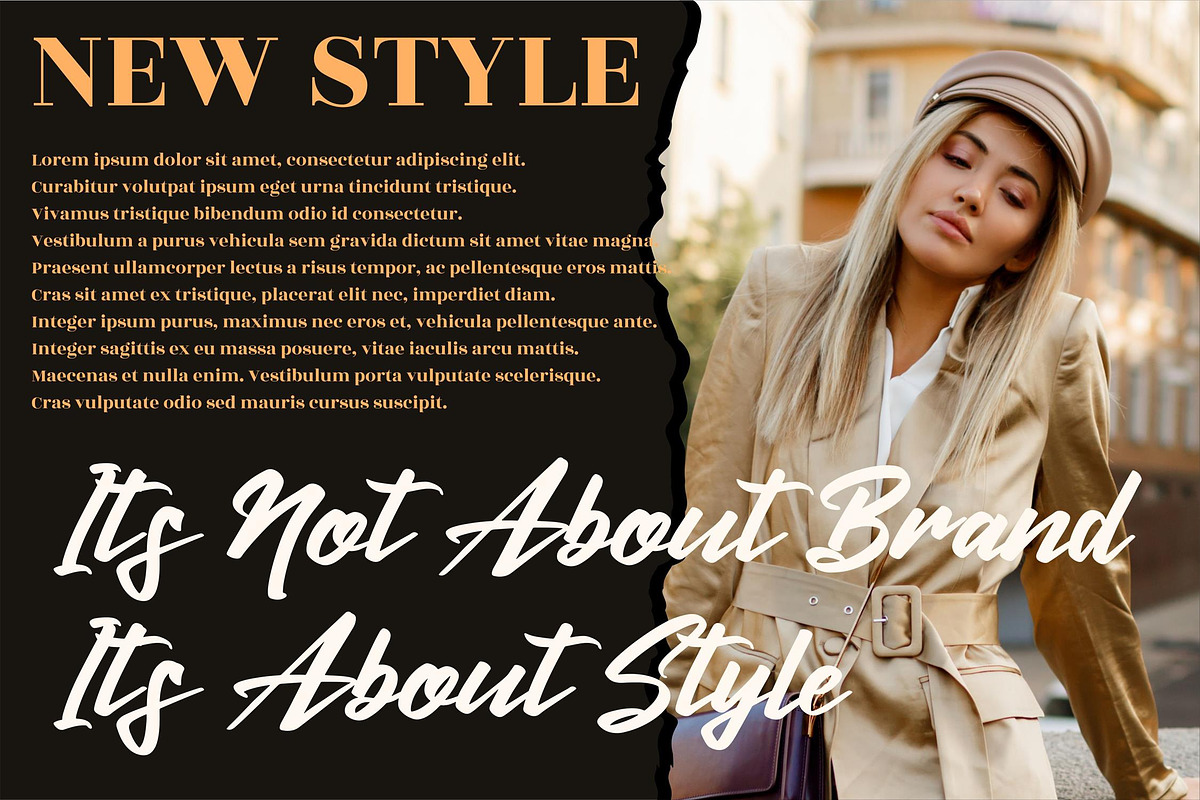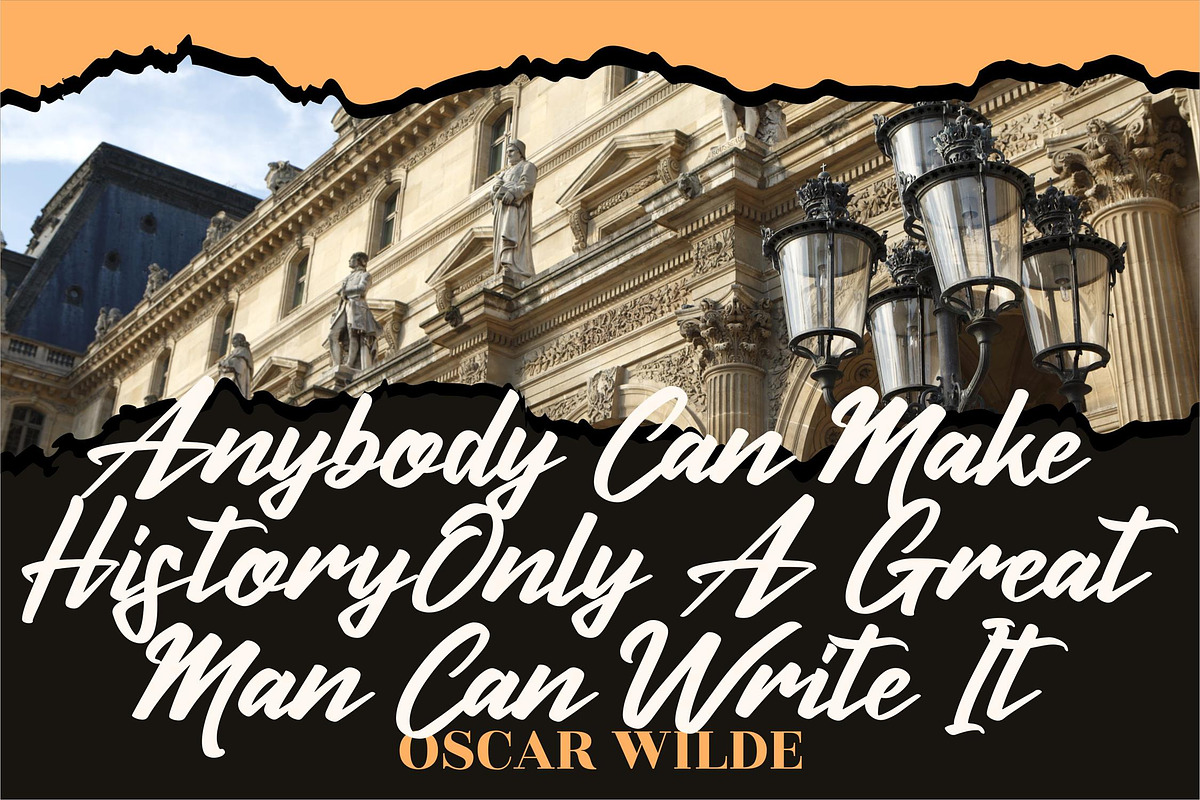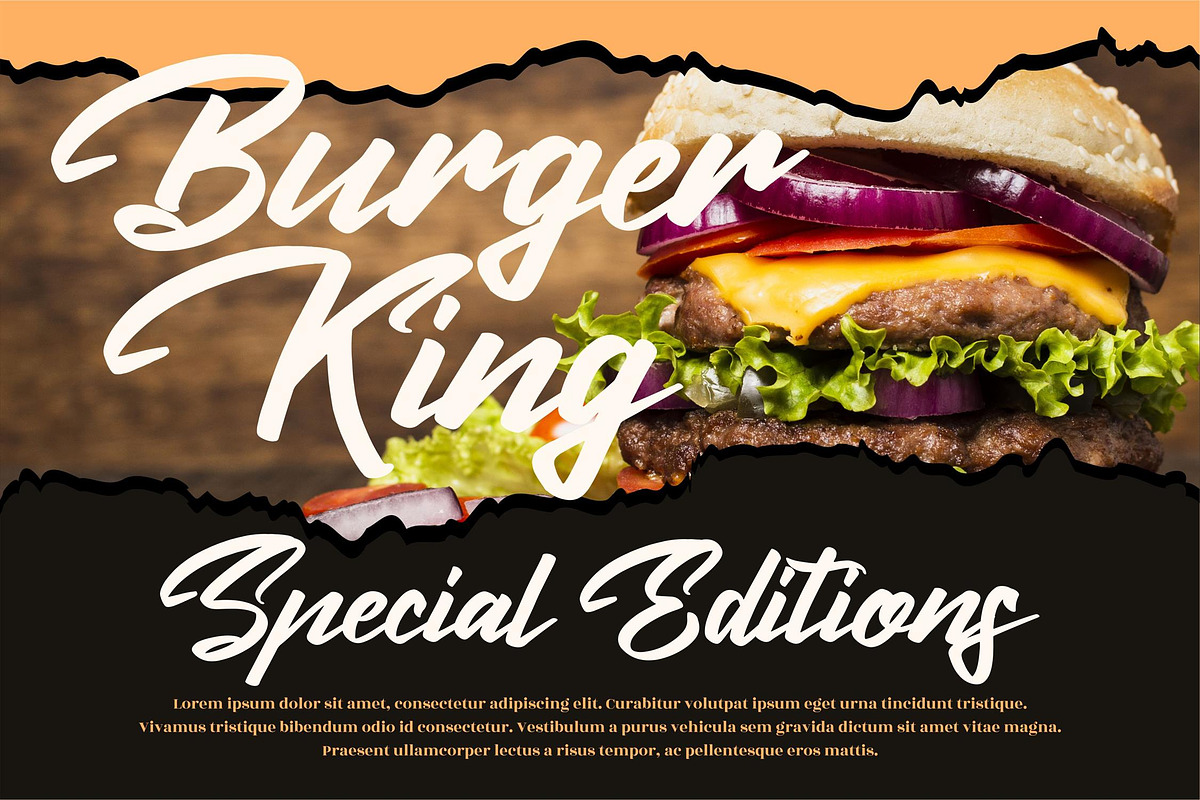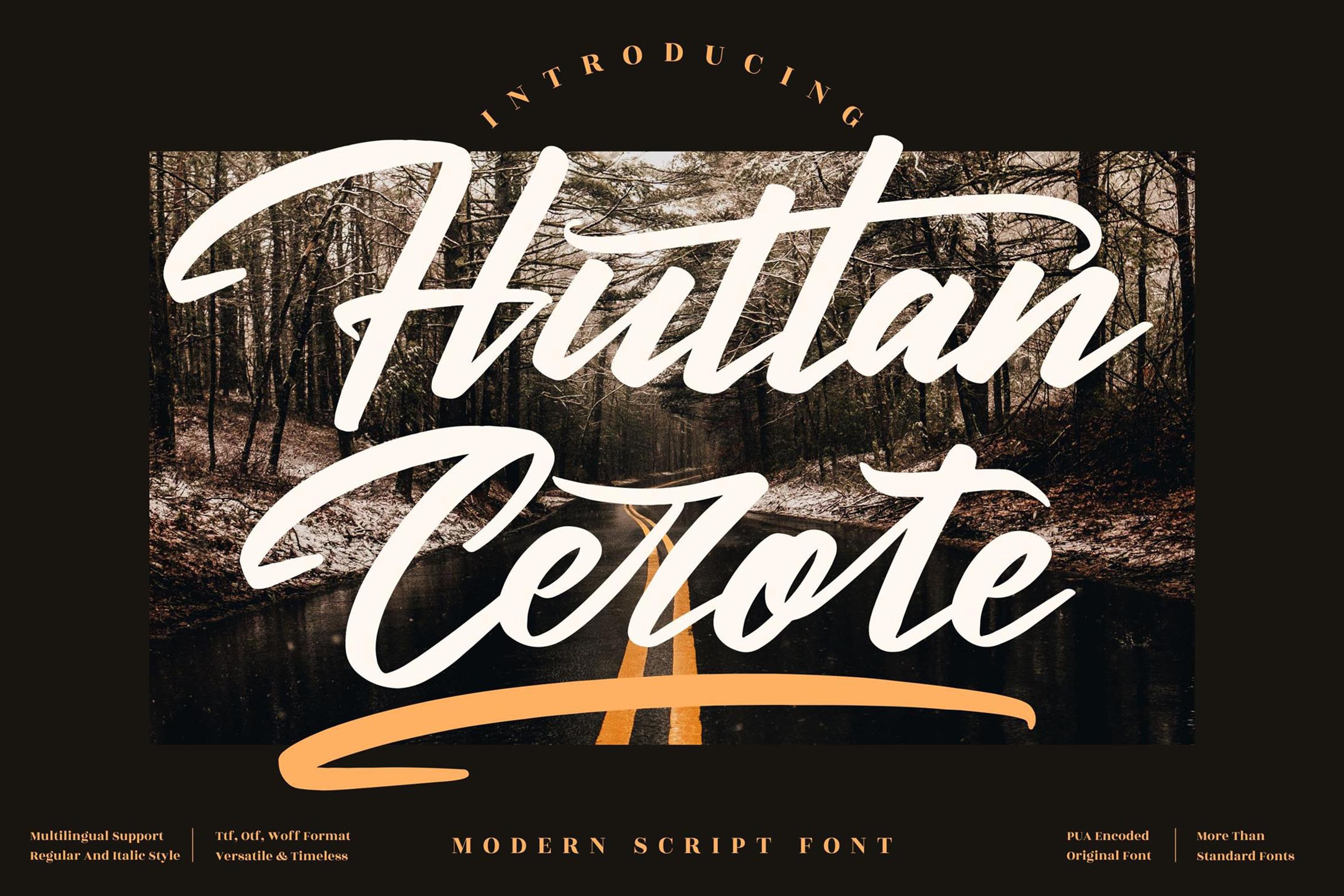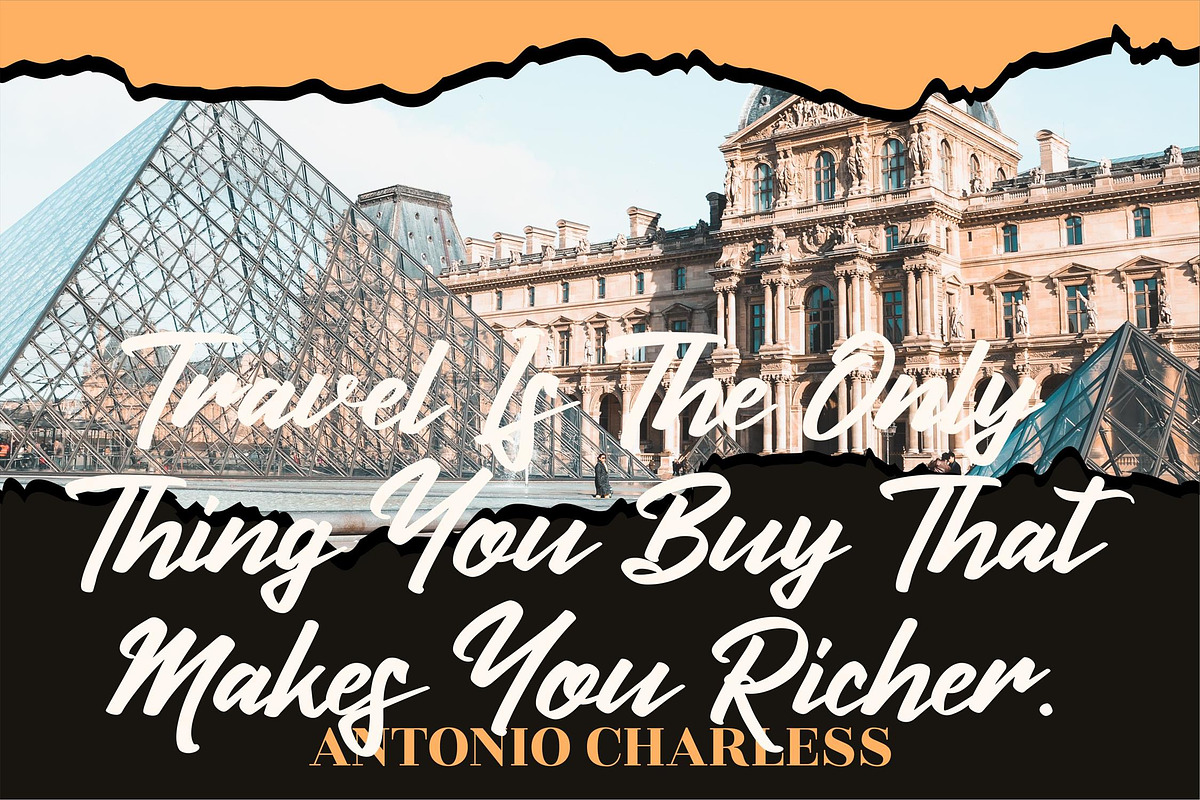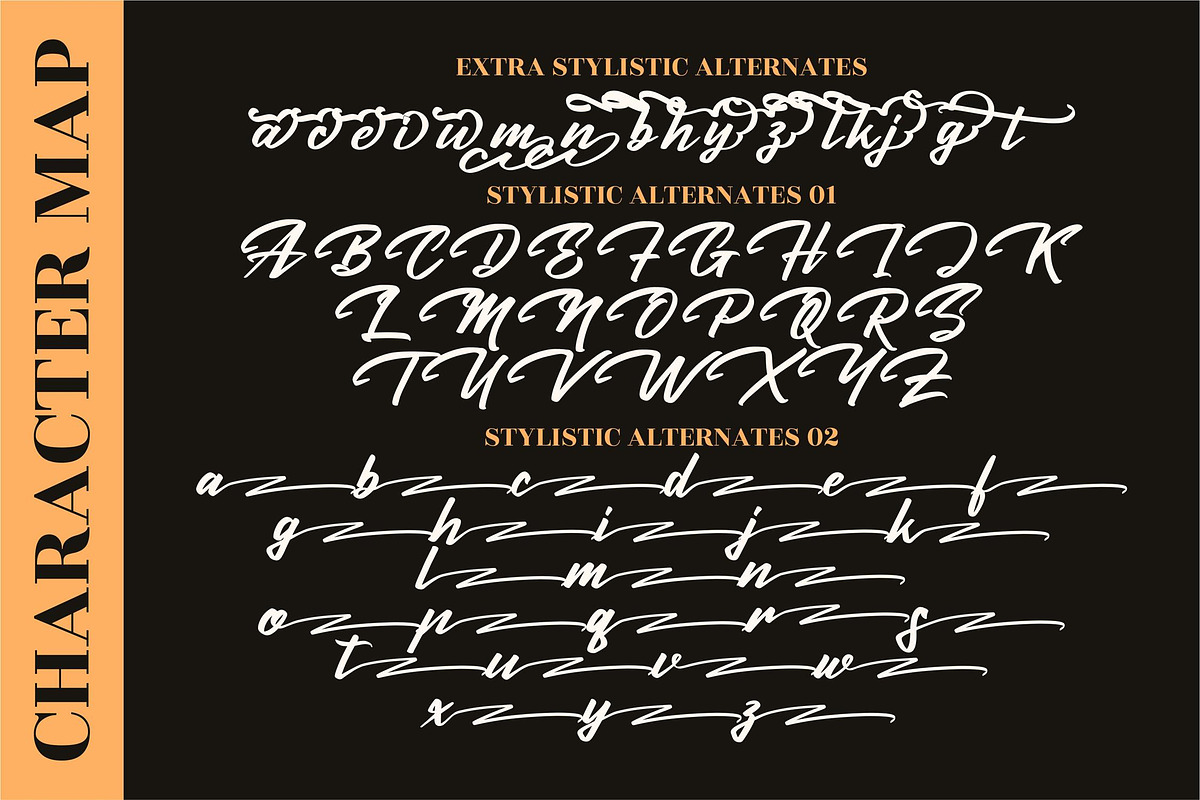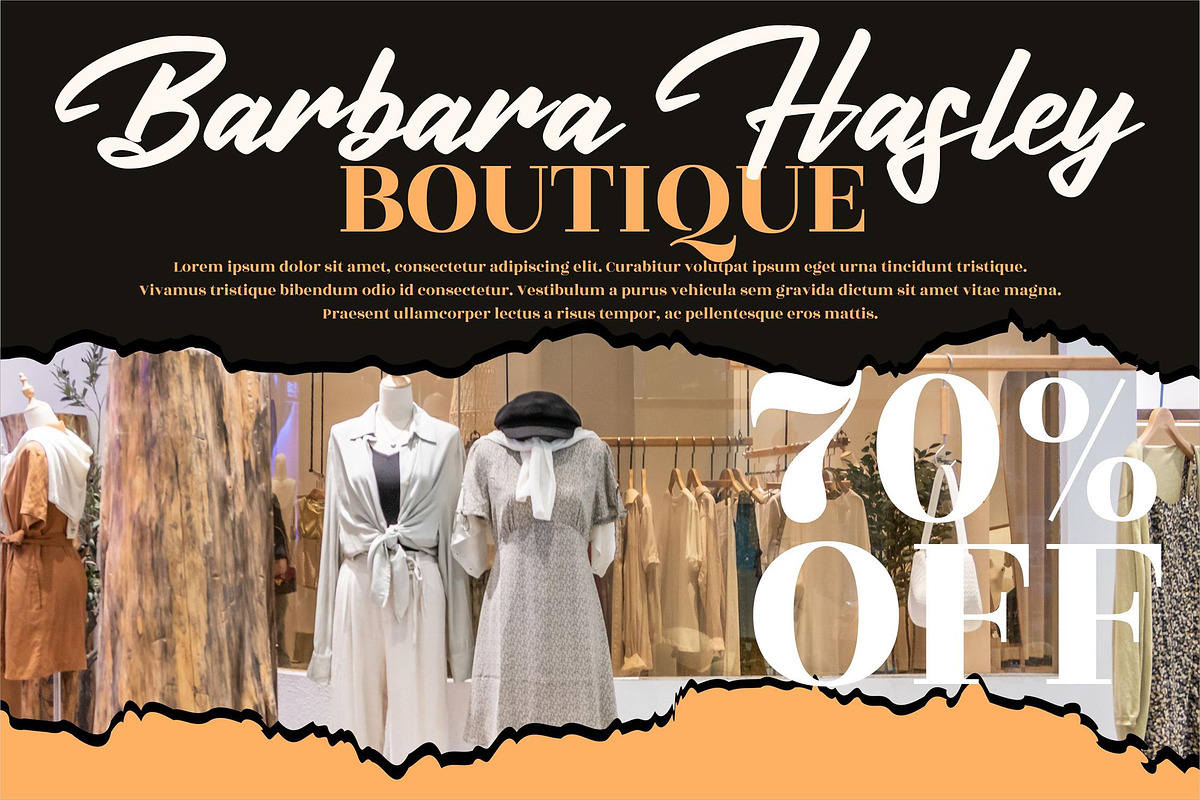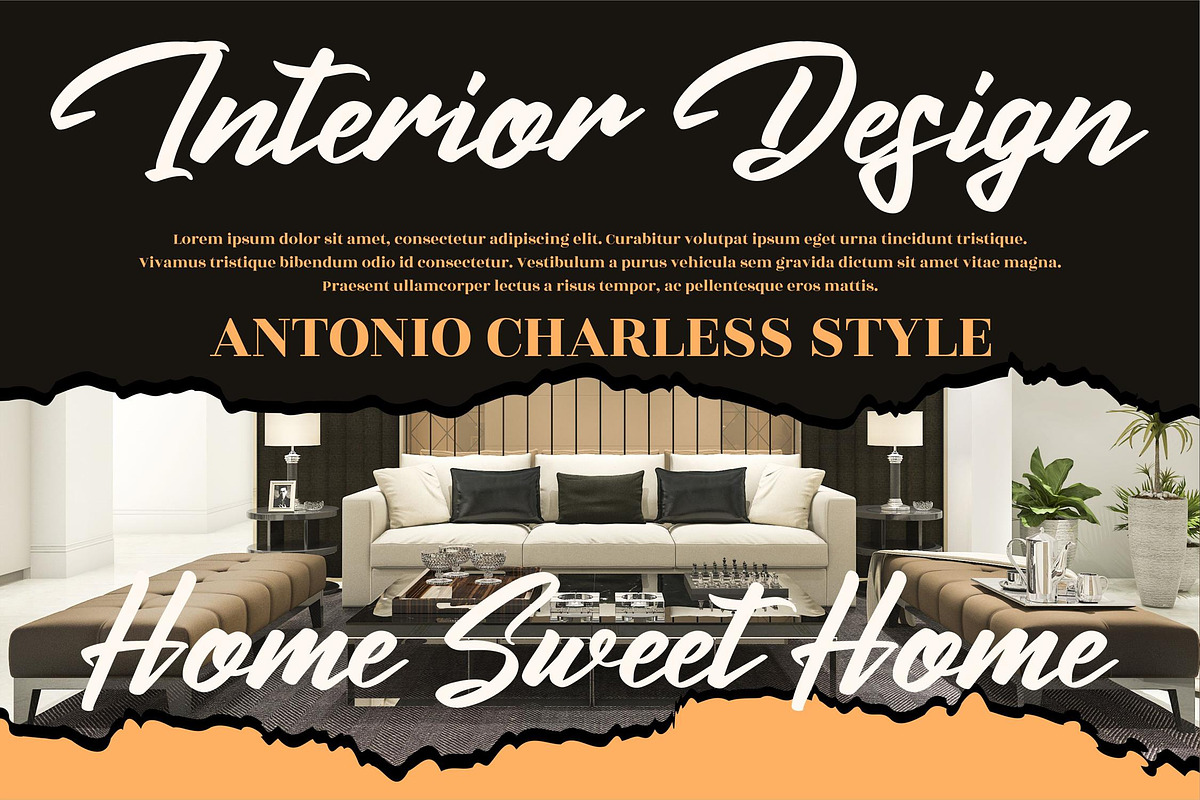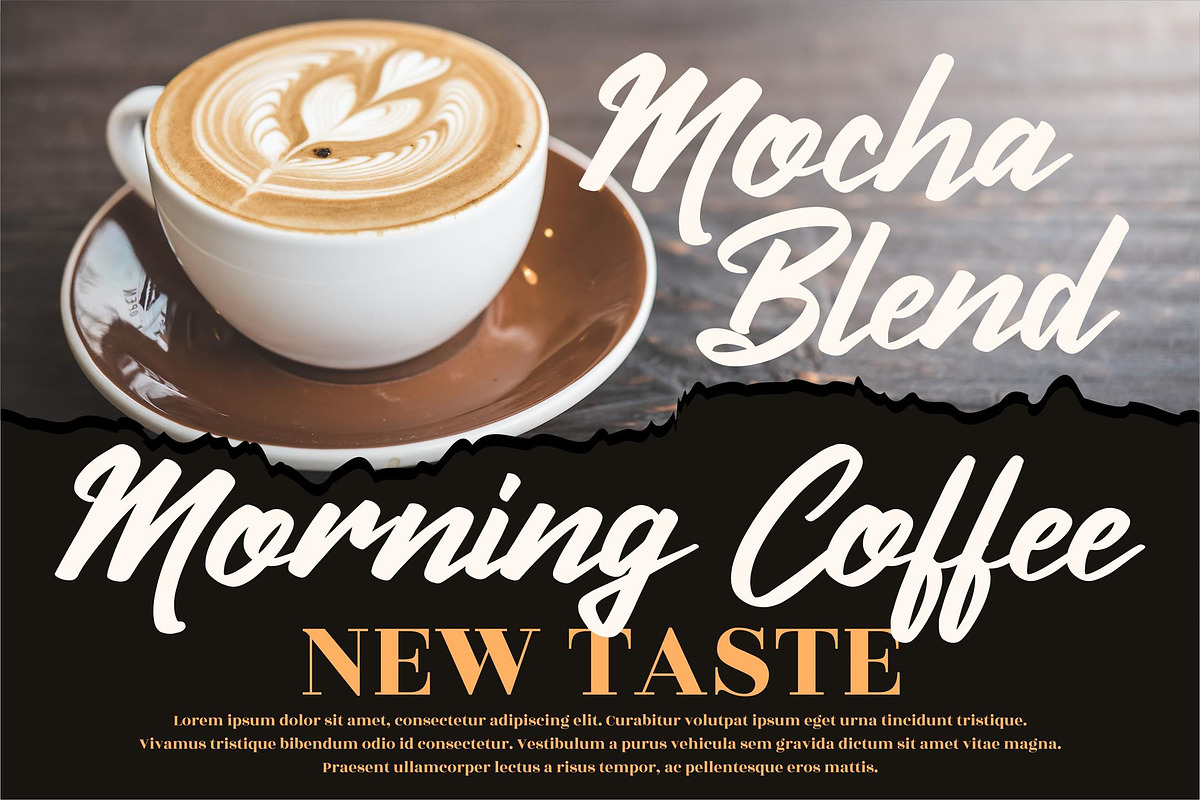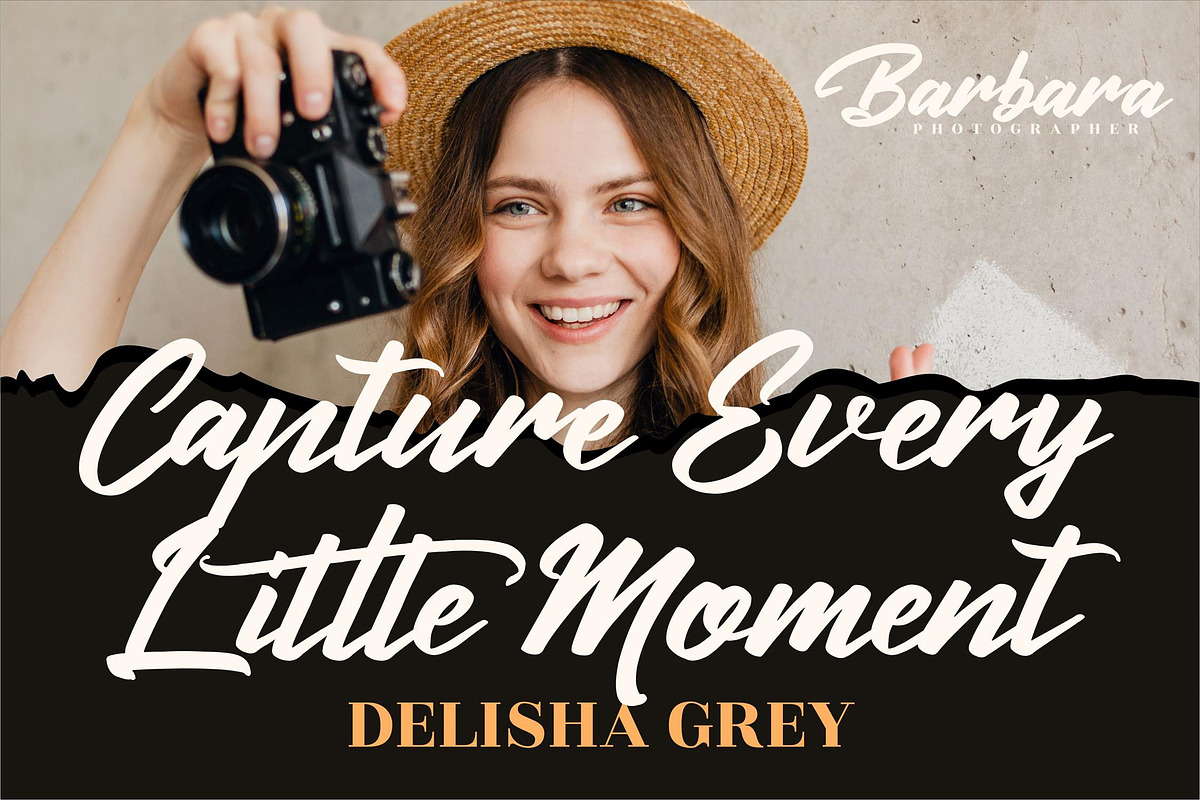
Huttan Cerote Script Font LS
Hi ladies & gentlemen, this is one of our fonts suitable to complement your digital and printed creative products. This font is perfect for posters, social media posts, branding, personal projects, etc.